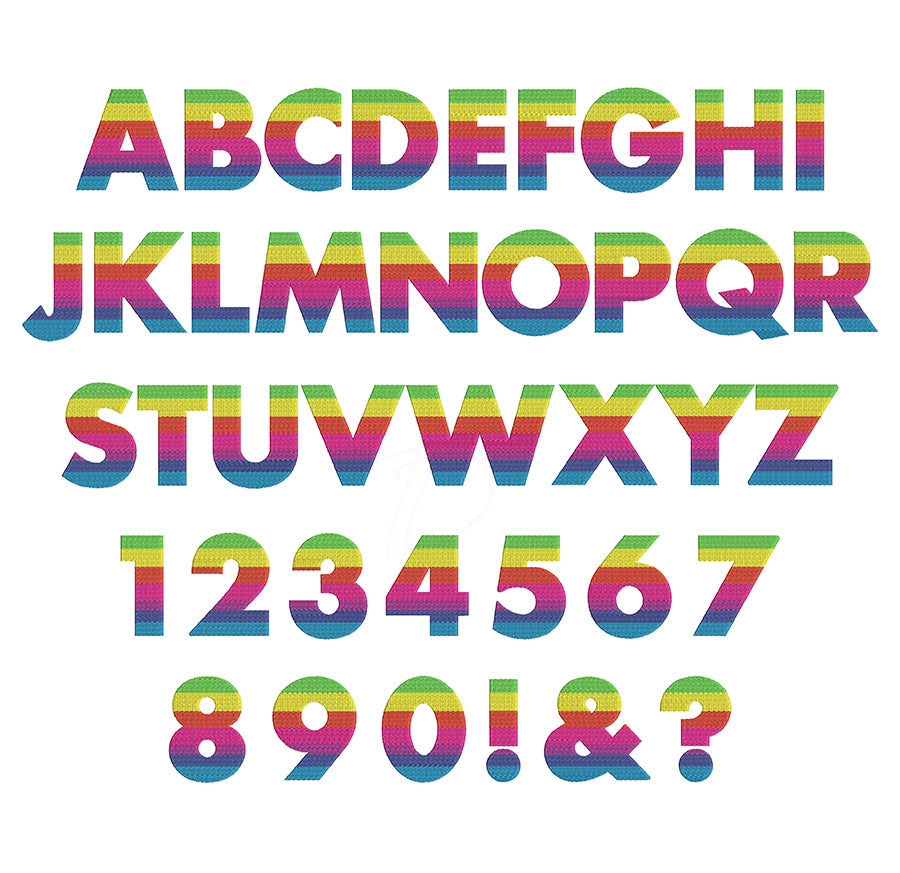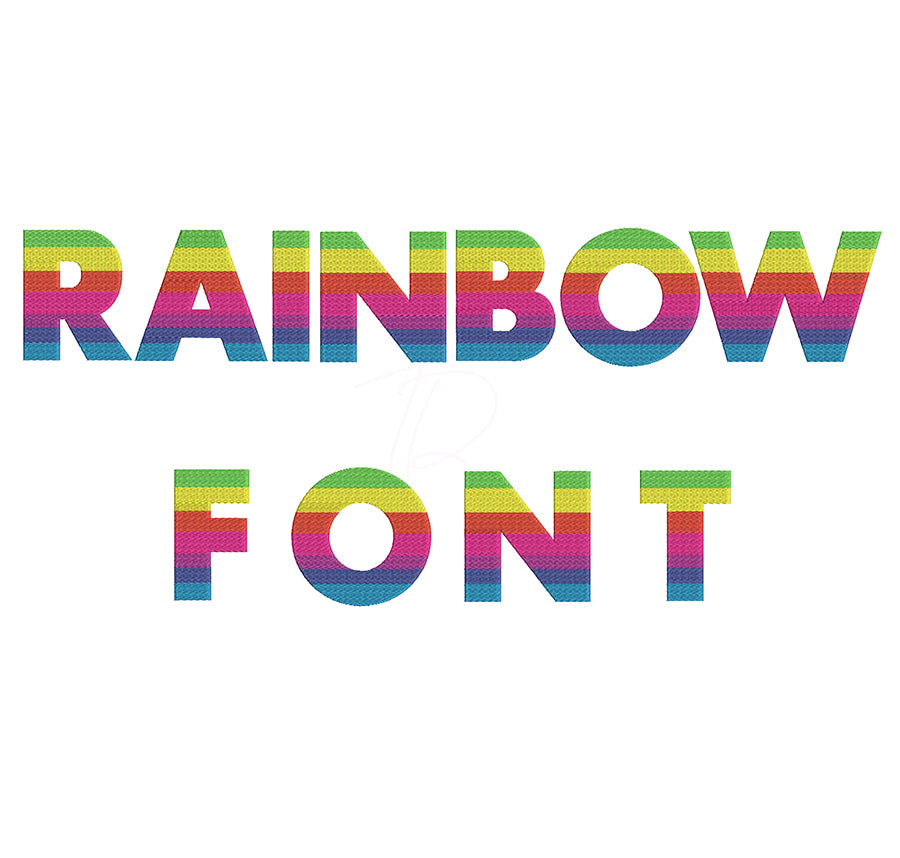
Rainbow Embroidery Font
Stitch a splash of color into every project with the Rainbow Embroidery Font — a bright, cheerful machine embroidery font that brings vibrant, multicolor energy to any item it touches! 🌈✨🧵
Each letter is designed to showcase beautiful rainbow color gradients, making it perfect for kids' apparel, pride celebrations, festival gear, nursery décor, tote bags, and any project that calls for a burst of joyful color.
- Includes full alphabet (A–Z, a–z) and numbers
- Ideal for multi-color thread work — stitch each color section separately for stunning results
- Clean stitching optimized for small and medium sizes